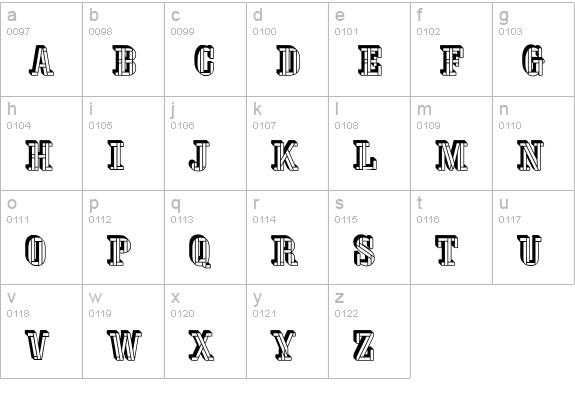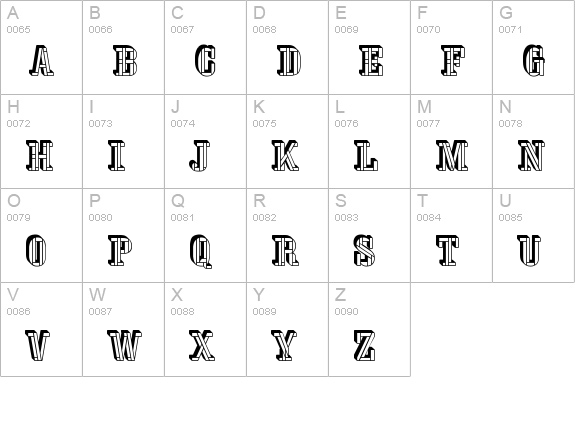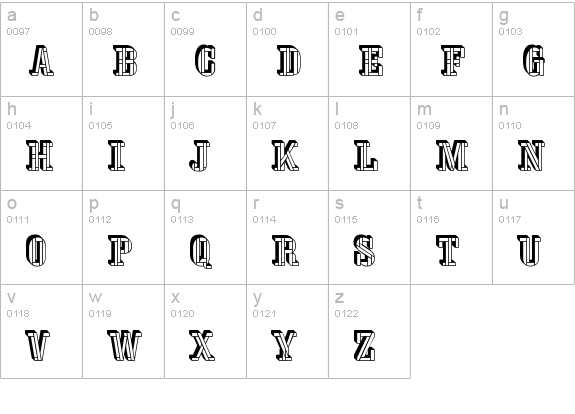
Oaktag 3D Font Details
Introducing Oaktag 3D font – a stunning and versatile typeface that adds depth and dimension to your designs. This unique font combines the timeless elegance of classic typography with a modern 3D twist, making it perfect for a wide range of creative projects. Oaktag 3D font features bold, clean lines and sharp angles that give your text a dynamic and eye-catching appearance. Whether you're designing a logo, poster, or website, this font is sure to make a statement and capture attention. Best of all, Oaktag 3D font is completely free to download at FontsMarket.com. Now you can enhance your designs with this stylish and impactful font without any cost. Don't miss out on this fantastic opportunity to elevate your typography game with Oaktag 3D font. Download it today and get ready to impress!